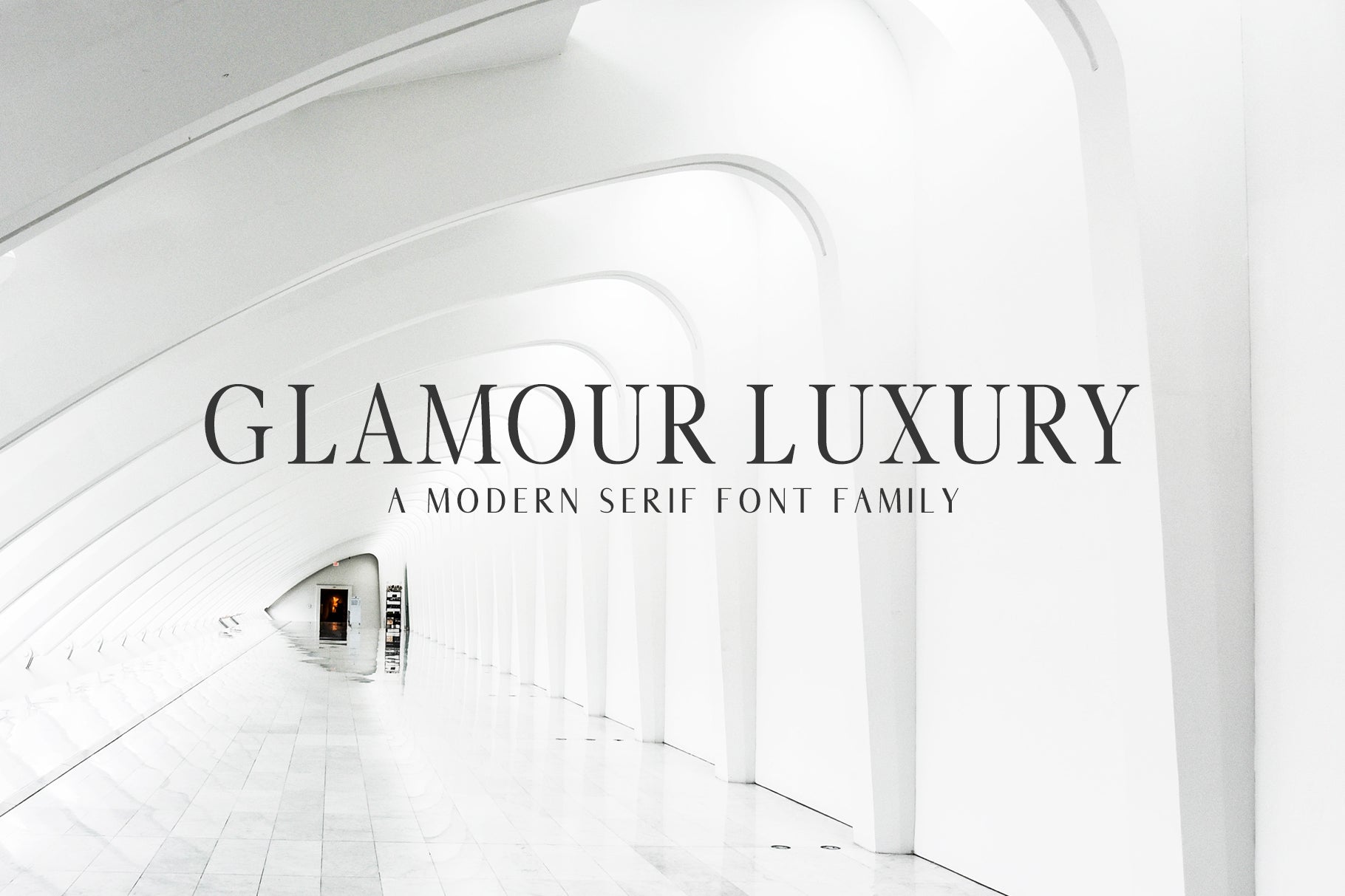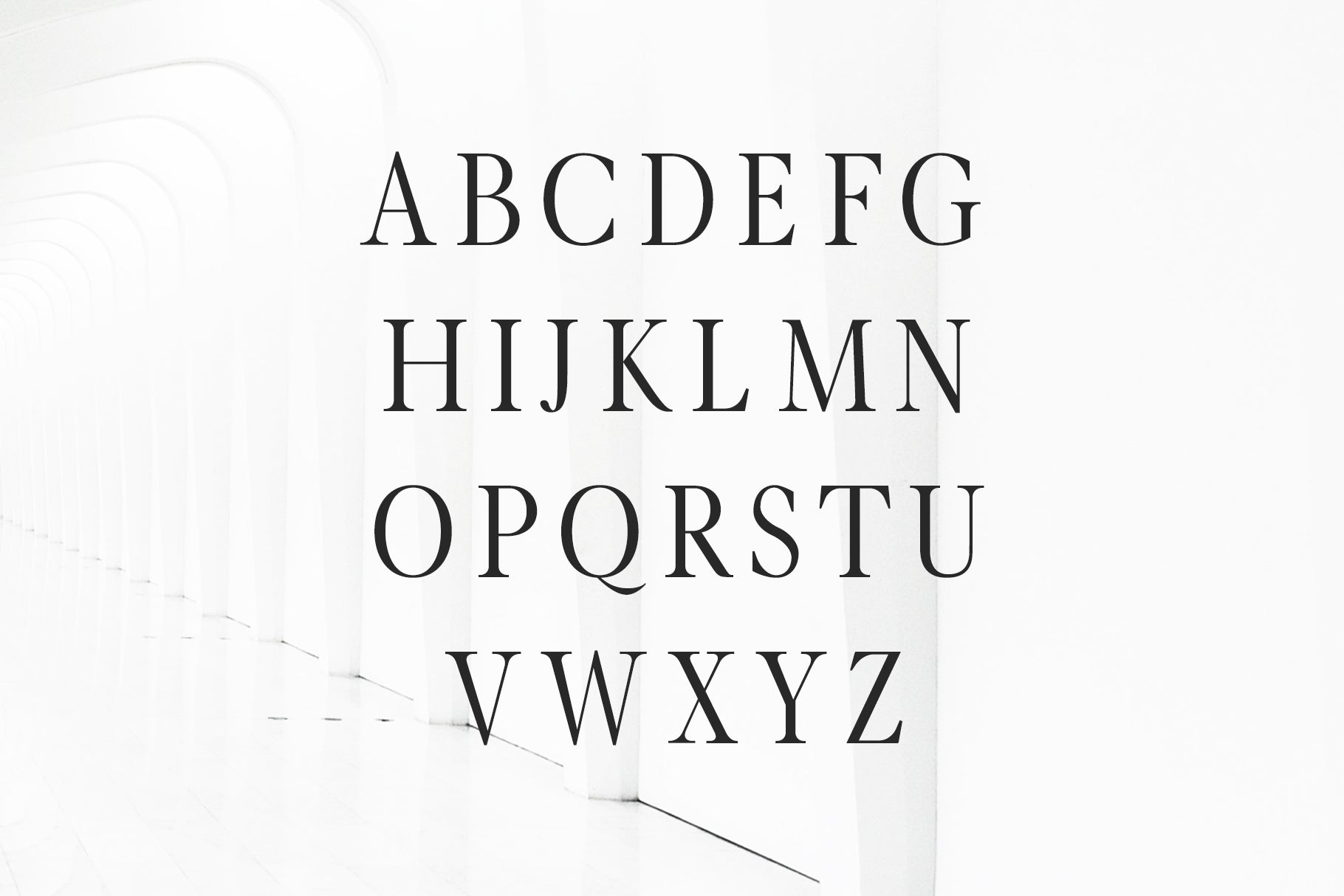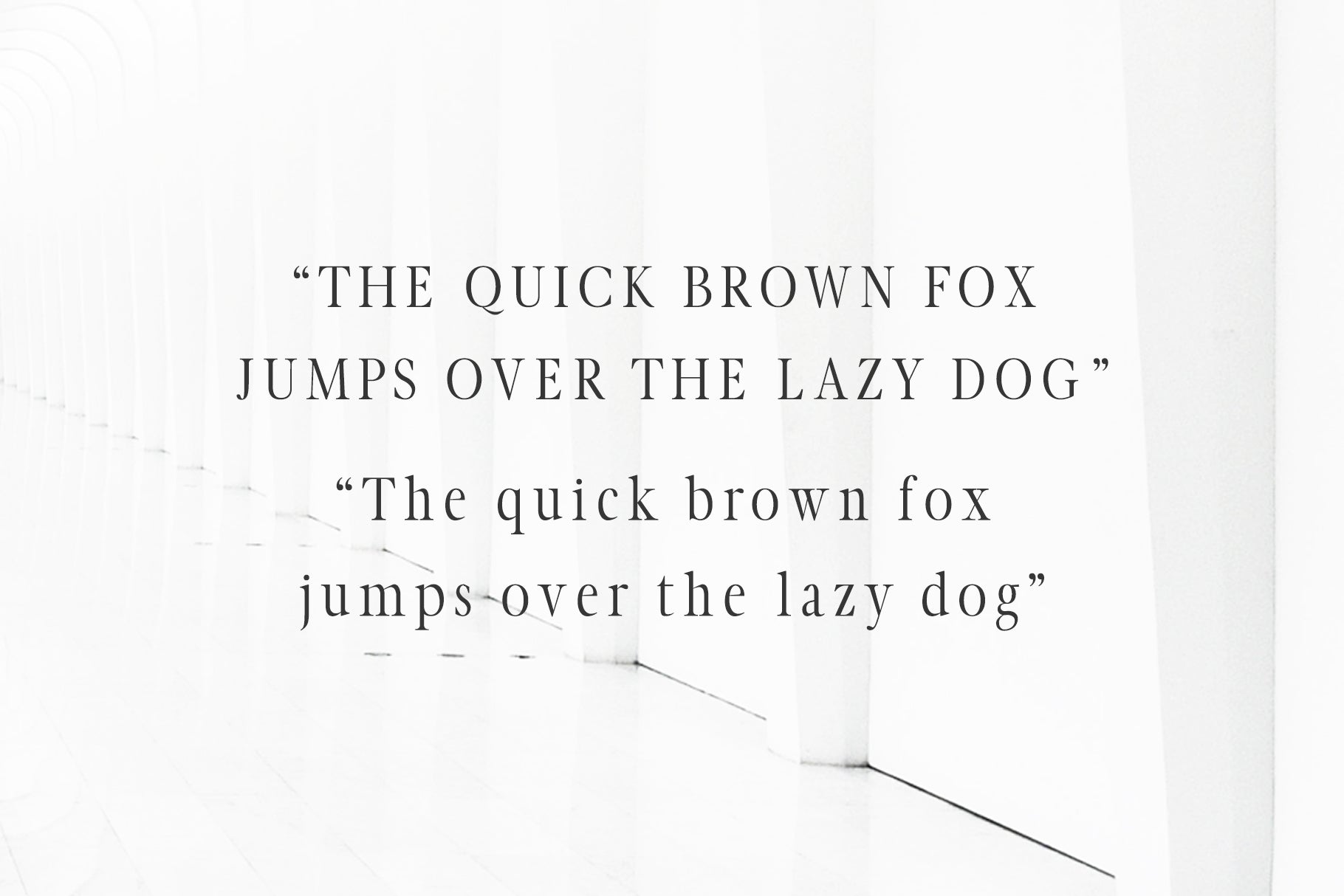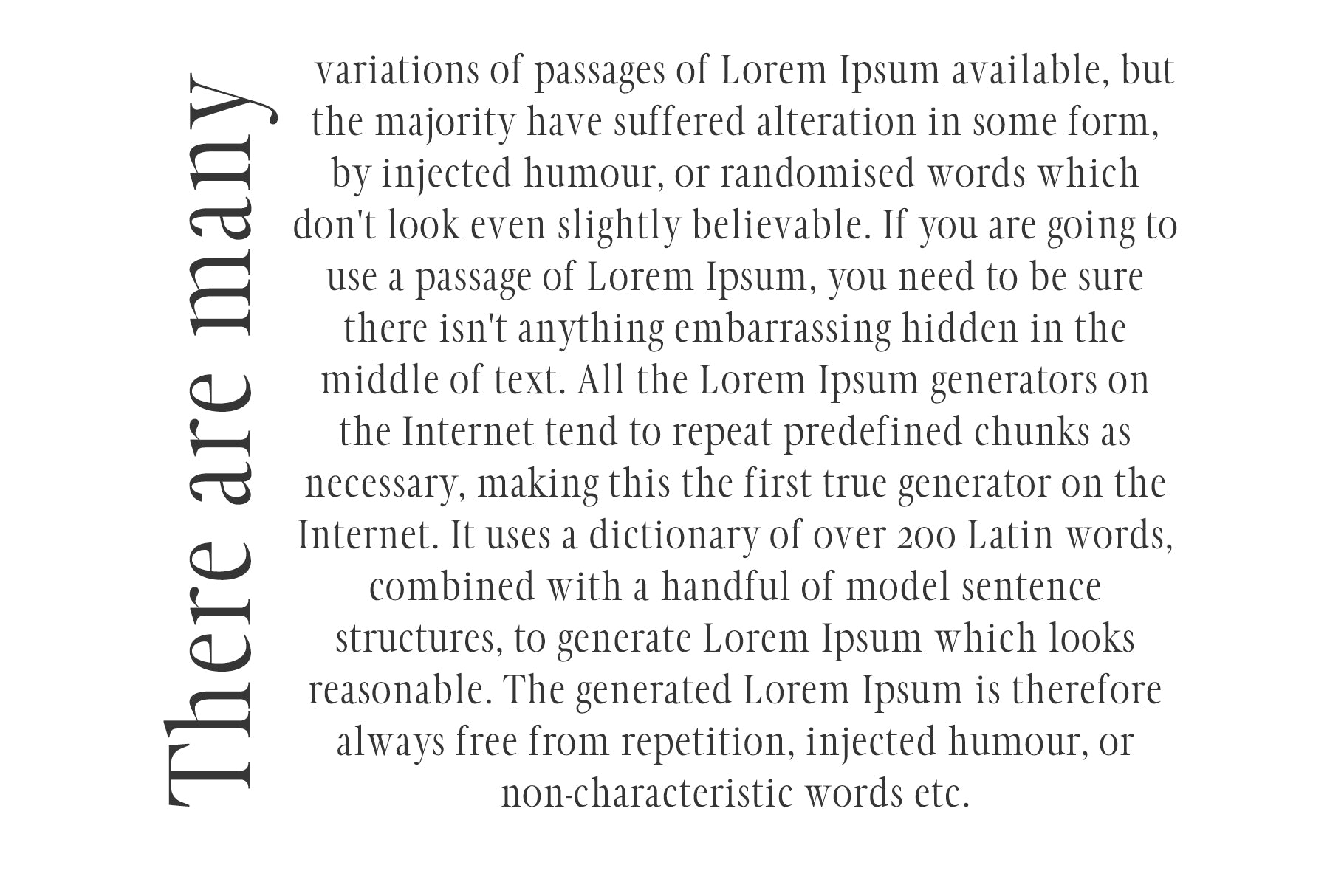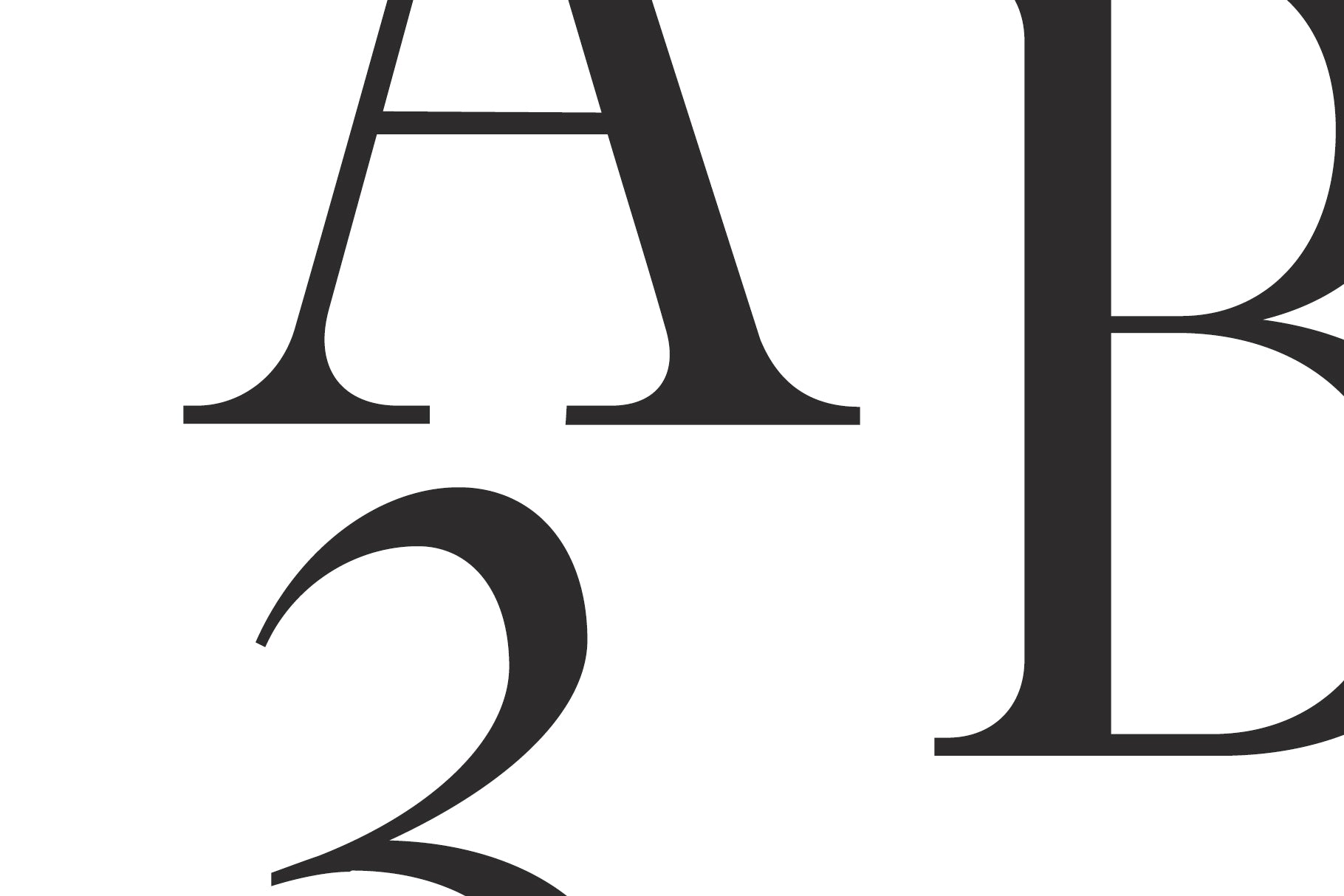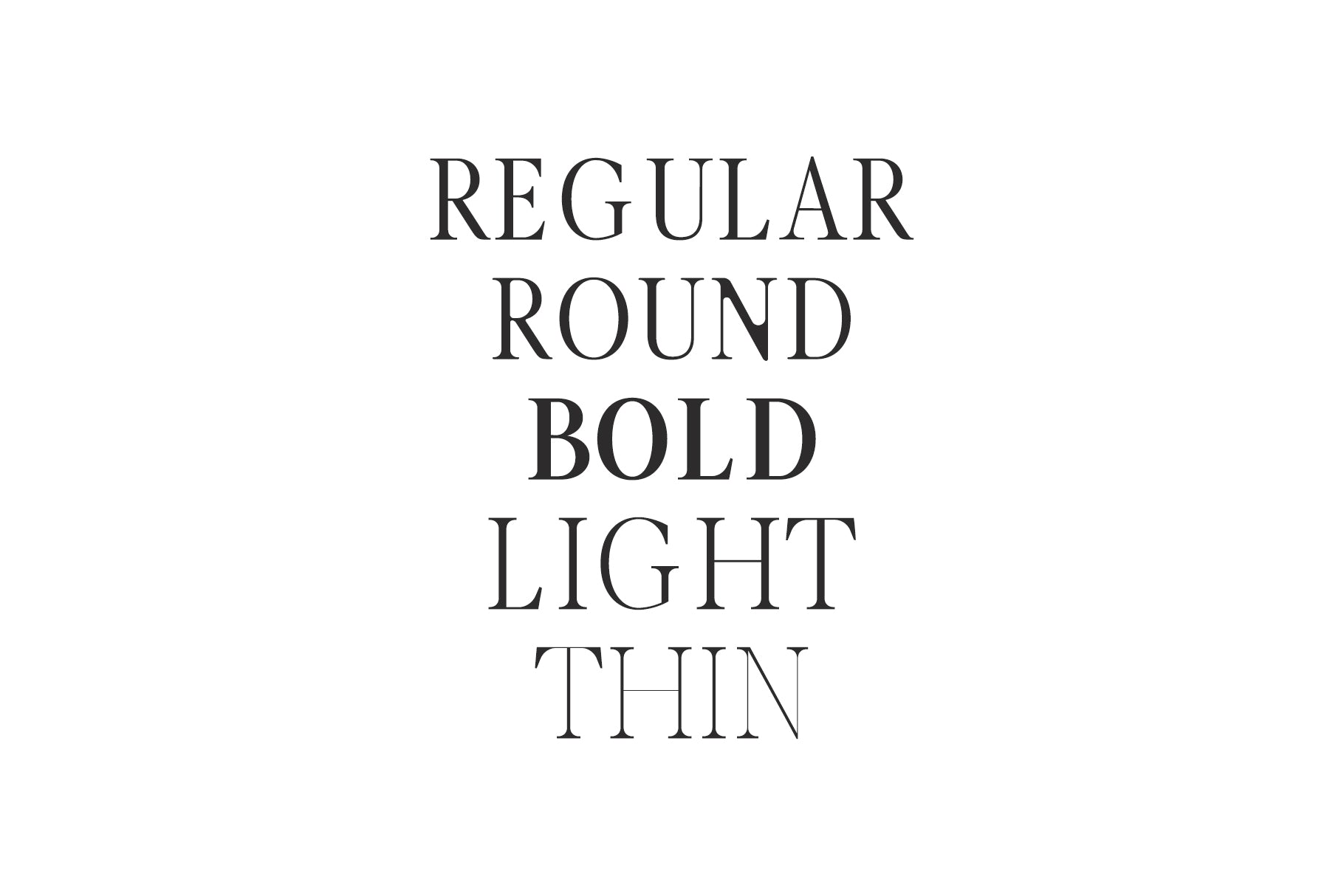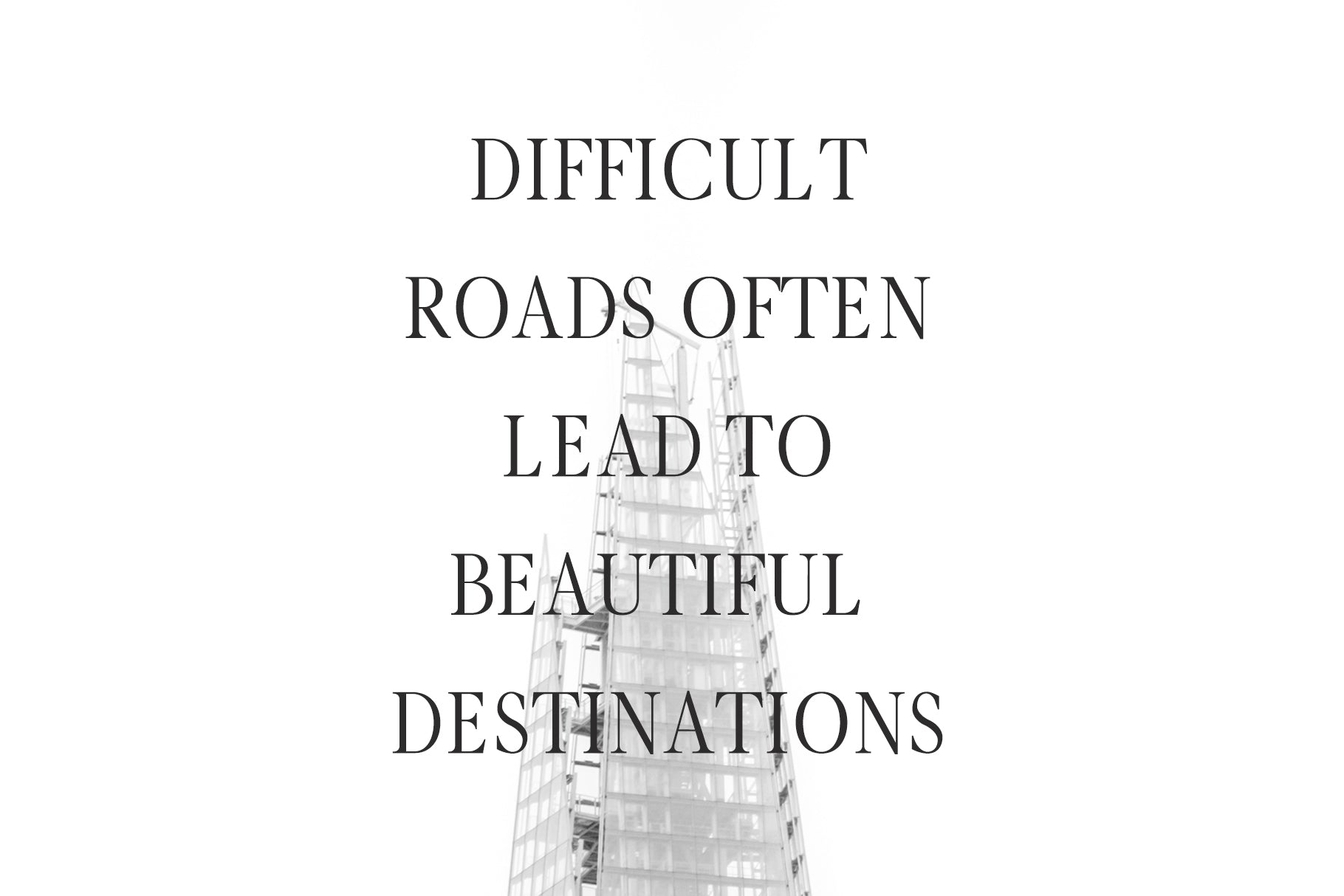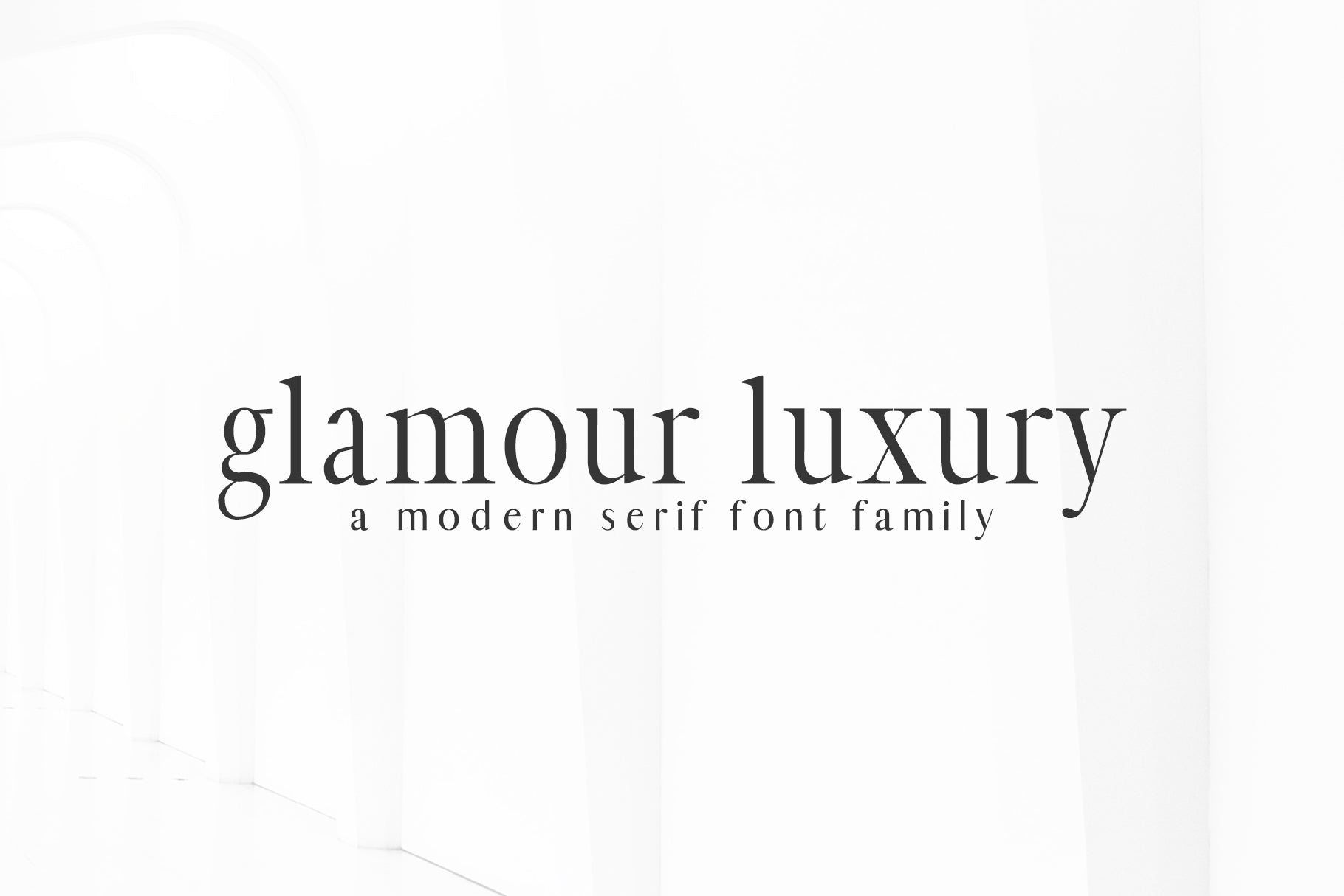
Glamour Luxury is a modern minimalist serif font family with wide choice of weights. It includes all basic glyphs with Non-English characters. It can be used for headlines, posters, branding, packaging, presentations, logo, quotes, titles, magazines headings, web layouts, advertising, invitations, packaging design, books, and nearly any creative design.
Font Weight: Regular, Light, Thin, Round and Bold
Uppercase Letters
Lowercase Letters
Numbers & Punctuation
Non English Characters ( Latin Supplement + Latin Extended A)